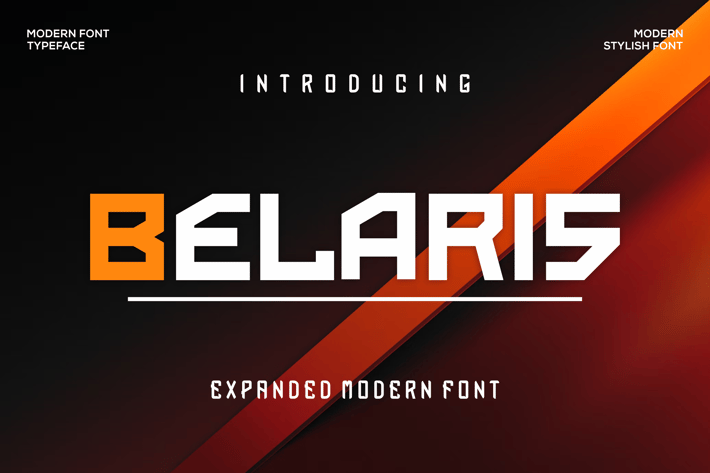
Belaris Font
Introducing our new product Belaris Font - Modern Font
Gabuq Font - Modern Font is a bold and authentic display font. The font is suitable for any branding project like logo, esport, and many more. outstanding in a wide range of contexts.